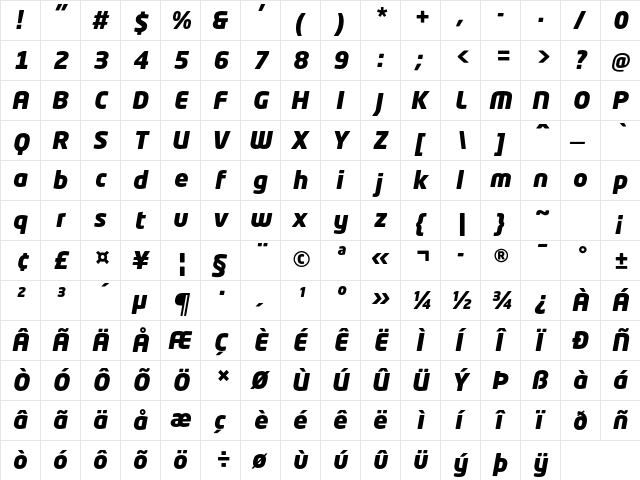
Neo Tech Std Black Italic
Design Context for Neo Tech Std Typeface
Neo Tech Std has a distinctly futuristic character, with geometric precision and clean angles that feel at home in technology, gaming, and sci-fi contexts. The slanted form adds forward momentum and visual energy.